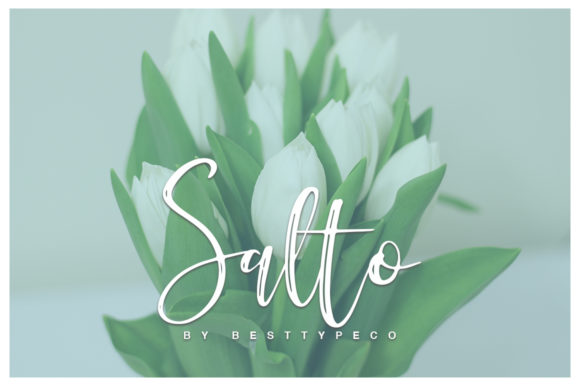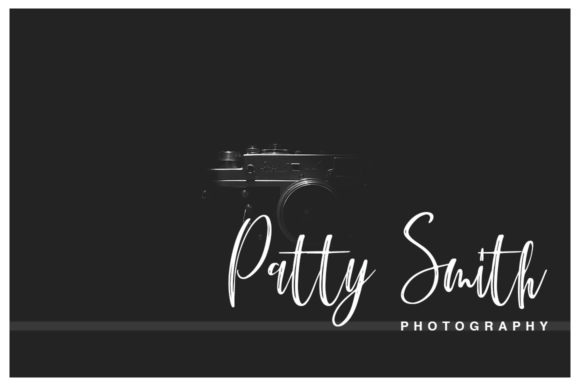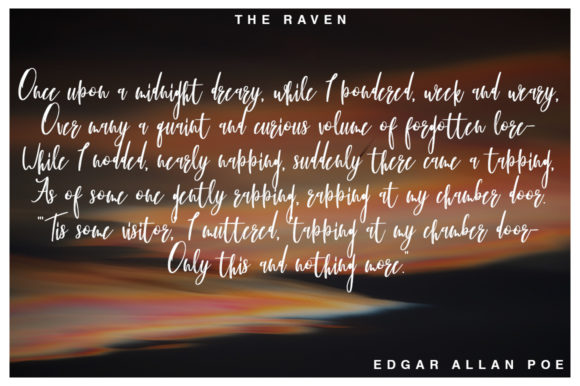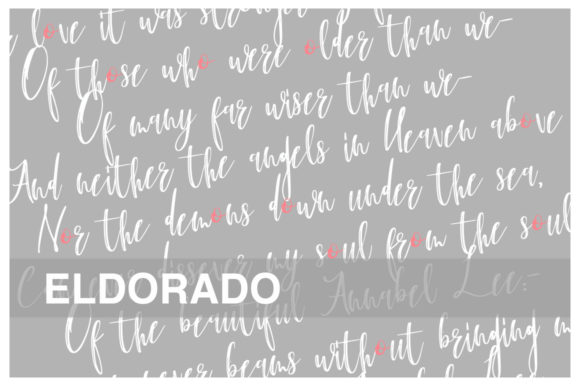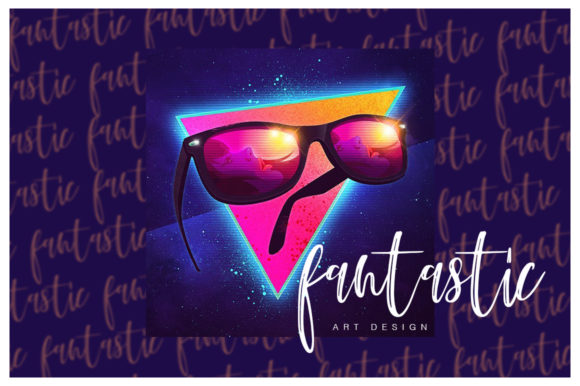
HomeScript FontsSalto Font Script Fonts Salto Font FacebookXPinterestWhatsApp Salto Font Poster 2 Salto Font Poster 3 Salto Font Poster 4 Salto Font Poster 5 About Salto Font Salto is a fresh and unique script that radiates authenticity. Get inspired by this dynamic font. DOWNLOAD ON CREATIVE FABRICAThis font is sold and delivered by Creative Fabrica. Font Canyon may earn a commission if you buy through this link. People also explored Contra Dethalia Script Font Paradiso Home Farm Font Street Font Constaller Font Oklahoma Font Boho Font Blumen Paradise Font 344 0 TagsSalto Font Previous articleGolden Palace FontNext articleCeremony Font LEAVE A REPLY Cancel reply Comment: Please enter your comment! Name:* Please enter your name here Email:* You have entered an incorrect email address! Please enter your email address here Website: Save my name, email, and website in this browser for the next time I comment. Personal Use Free Potato Pancakes Personal Use Free Read more about this font Feather Script Personal Use Free Read more about this font Boronic Personal Use Free Read more about this font Qiwqiw Personal Use Free Read more about this font BLOG Free Fonts Risk: Why Free Fonts Can Be Dangerous for Designers Free Fonts Risk: Why Free Fonts Can Be Dangerous for Designers Using free fonts is a common practice in web and graphic design. However, the... Exploring Font Trends Top 10 Handwritten Fonts That Elevate Your Designs Best Fonts for T-Shirt Design – Top 2025 Picks